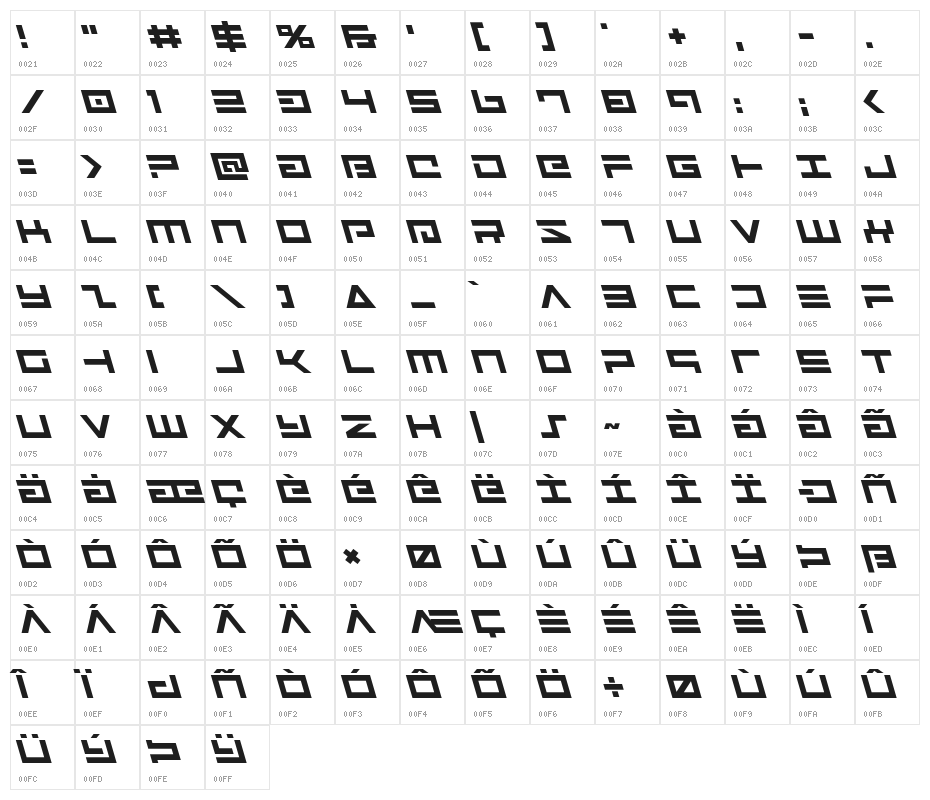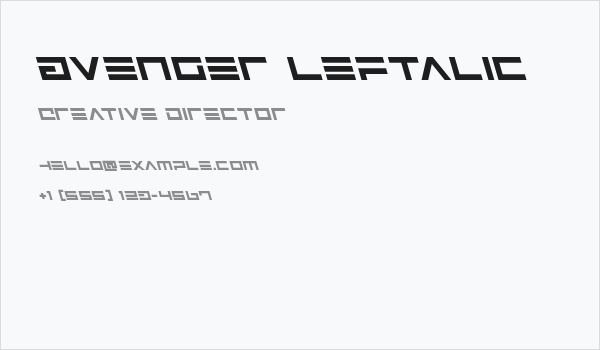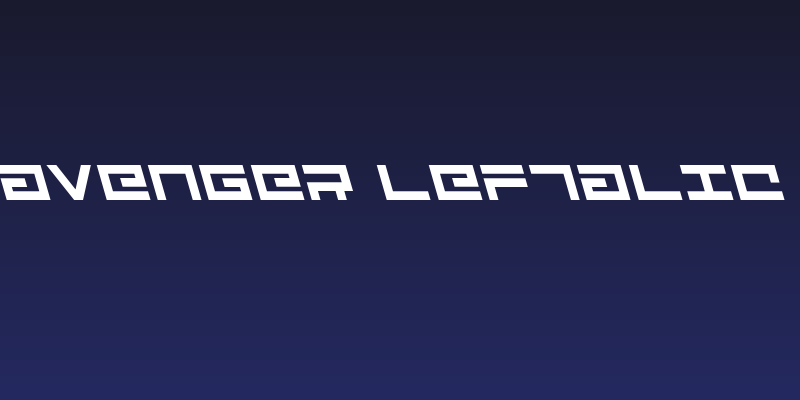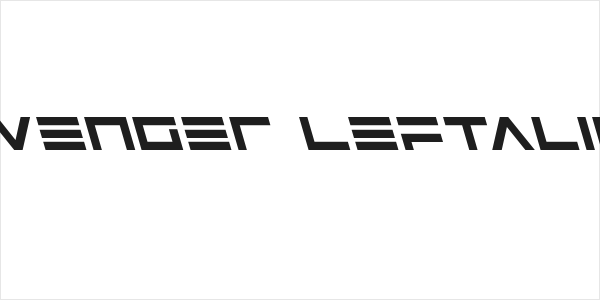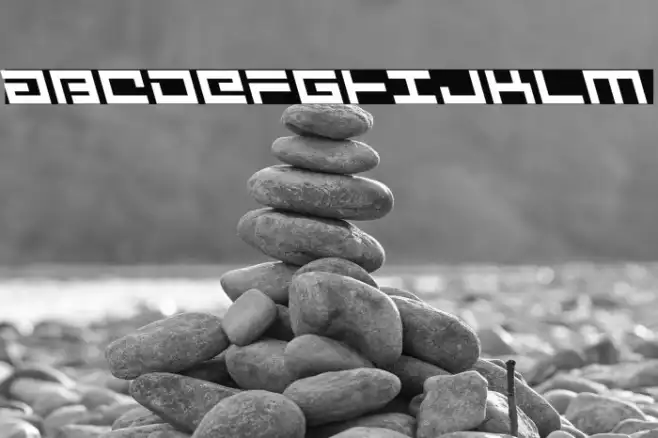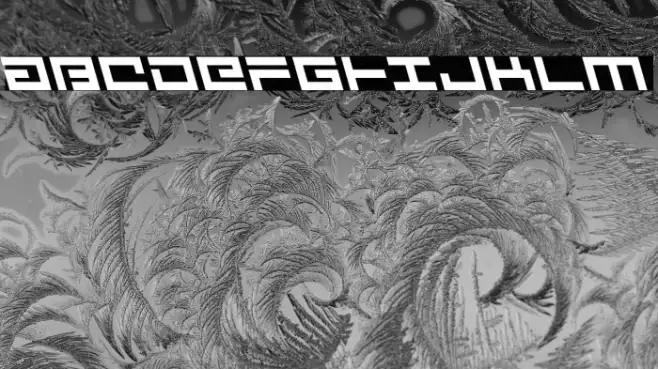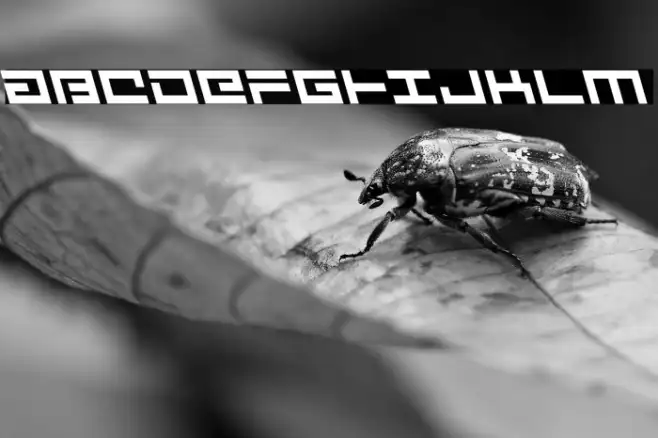
Avenger Leftalic Font
Avenger Leftalic Description
This font features a bold, futuristic design with angular, geometric shapes that create a sense of movement and dynamism. The characters are constructed with sharp edges and a consistent stroke width, giving it a strong and assertive appearance. The uppercase and lowercase letters maintain a uniform style, with a slight slant that adds to its modern and edgy feel. The numerals and special characters are designed to match the overall aesthetic, making it suitable for projects that require a bold and impactful visual presence.